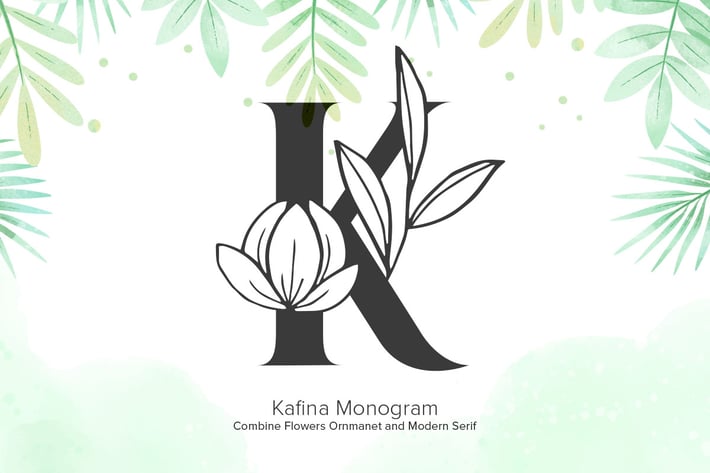
Kafina Monogram Fonts
Kafina Monogram is a beautiful decorative font, featuring elegant flowers. Get inspired by its authentic feel and use it to create gorgeous wedding invitations, lovely stationary art, eye-catching social media posts, and cute greeting cards.